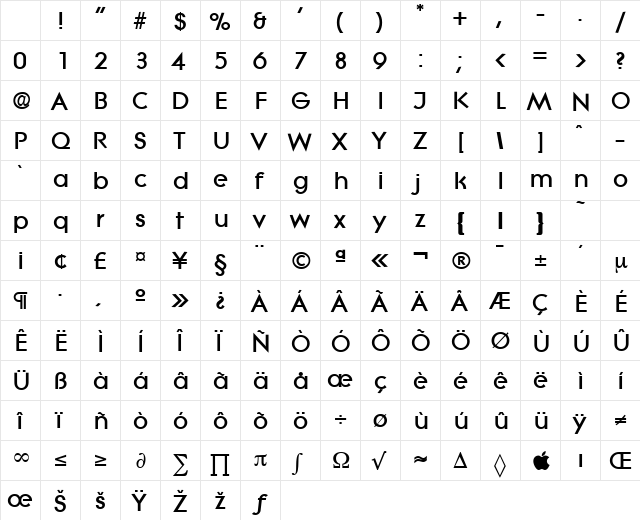
Litera-Serial-Heavy Regular
Litera-Serial-Heavy Family
Design Context for Litera-Serial-Heavy
Litera-Serial-Heavy is a composed and adaptable typeface that performs quietly and consistently across a wide range of design contexts.